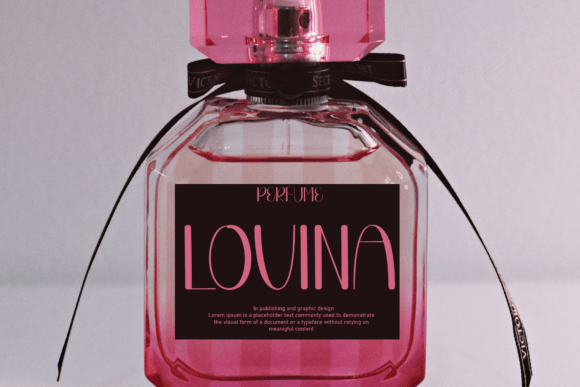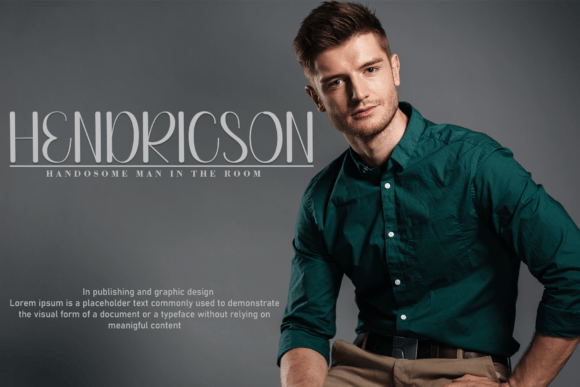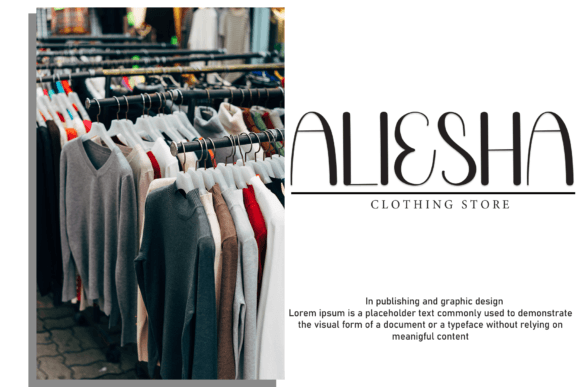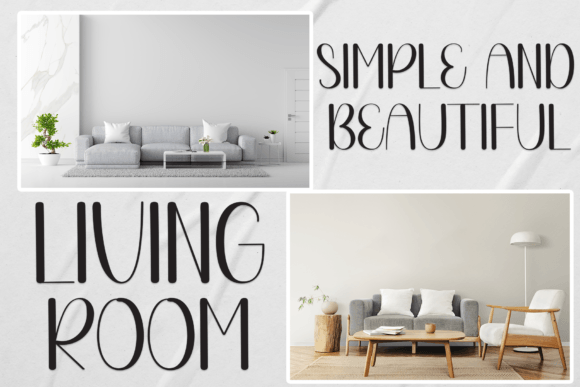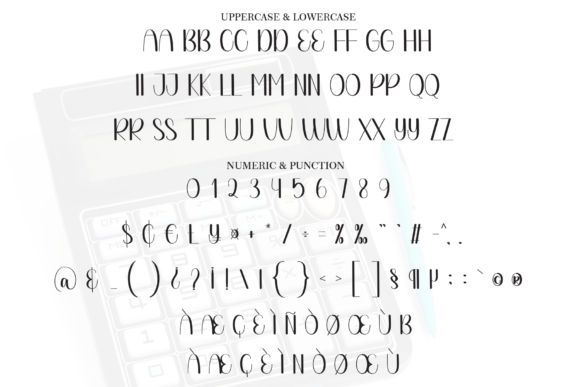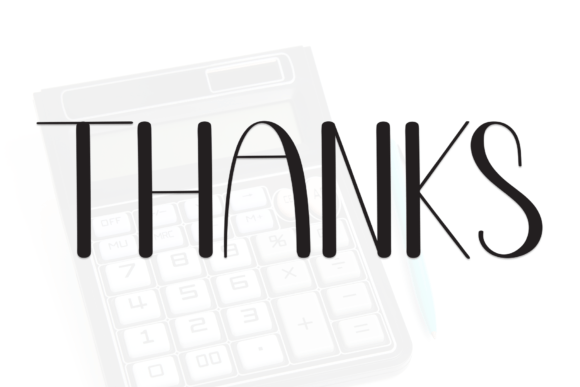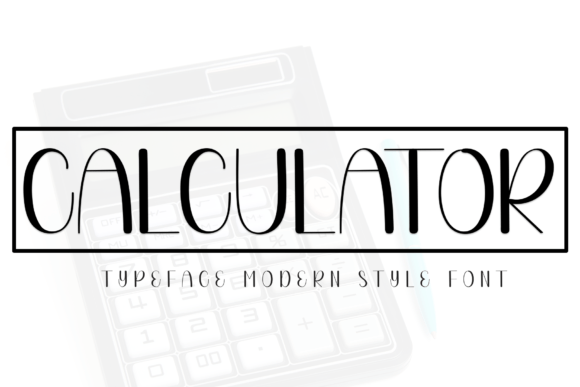
Discover the Joy of Handwritten Design with Calculator Font
Have you ever found yourself sitting at your desk, staring at a blank sheet of paper, and suddenly a burst of creativity hits you? You envision a beautiful wedding invitation, a playful birthday card, or a charming social media post that will capture the hearts of your audience. In these moments, the right font can make all the difference.
That’s where Calculator Font comes in – a sweet and friendly handwritten font designed to add a fresh and neat touch to your designs. Perfect for writing wedding invitations, cards, or any other design that needs a fun and playful vibe, Calculator Font is an invaluable asset for designers looking to add a personal touch to their work.
Calculator Font Key Features
- Font Size: Supports a wide range of font sizes, from 8 to 72 points, with precise control over pixel-perfect rendering
- Resolution: Optimized for high-resolution displays, including 4K and Retina screens, with crisp and clear text at any zoom level
- Unique Character Set: Includes a custom-designed set of mathematical symbols, including fractions, integrals, and Greek letters, to facilitate complex calculations
- Customizable: Allows for easy customization of font styles, including bold, italic, and strikethrough, to suit different mathematical and scientific applications
- Multi-Language Support: Supports a wide range of languages, including English, Spanish, French, German, Italian, and many others, making it a versatile font for international use
Calculator Font Review
As a designer, I’ve had the chance to work with “Calculator Font”, a font designed specifically for use in calculators and other technical devices. Here’s my honest review:
- High legibility: Calculator Font excels at providing clear and easy-to-read numbers, making it perfect for use in calculators and other devices where precision is key.
- Customizable: The font is designed to be highly customizable, allowing you to adjust the size, style, and spacing to suit your specific needs.
- Technical accuracy: Calculator Font is designed with technical accuracy in mind, ensuring that numbers and mathematical symbols are rendered correctly and consistently.
- Limited artistic expression: While Calculator Font is perfect for technical use, it may not be the best choice for artistic or creative projects where a more unique and expressive font is desired.
- Not suitable for body text: Due to its highly technical nature, Calculator Font may not be the best choice for body text or longer blocks of text, where a more readable and engaging font is preferred.
Overall, I’m impressed with Calculator Font’s focus on technical accuracy and high legibility. While it may not be the most versatile font, it excels at its intended purpose and is a great choice for any project that requires precision and clarity.
Use Calculator Font to create a retro or vintage look in your designs. It’s perfect for creating a nostalgic feel in logos, posters, and other graphics.
Tip: Combine Calculator Font with other fonts to create a unique and eye-catching design.